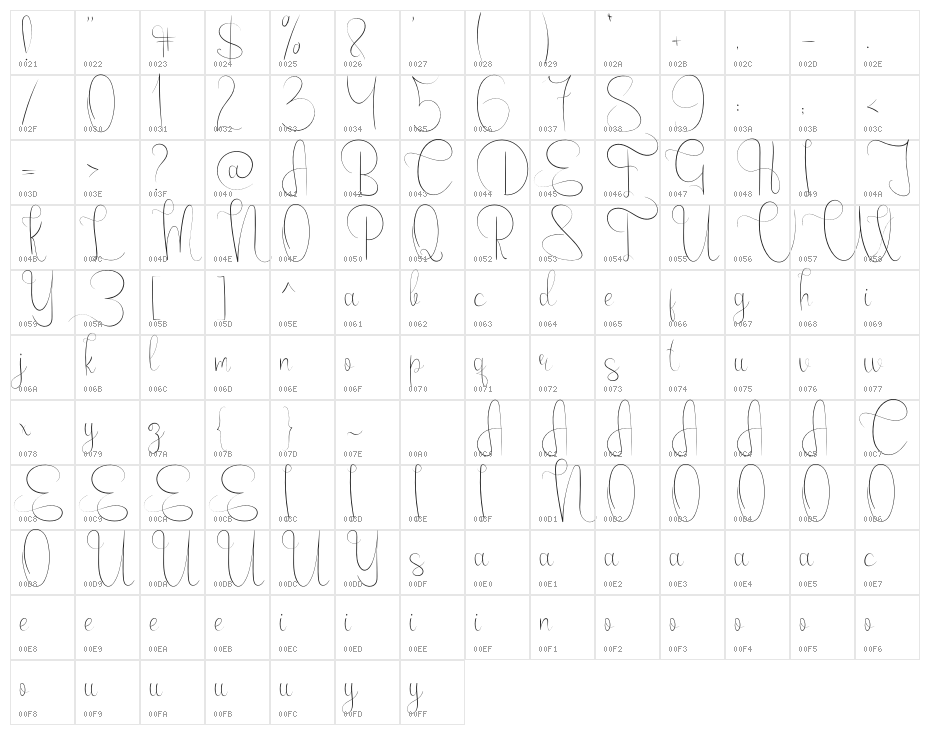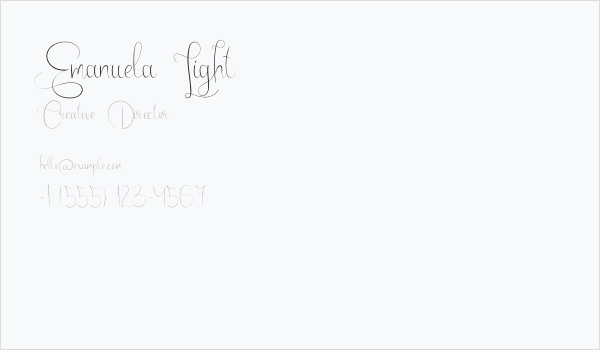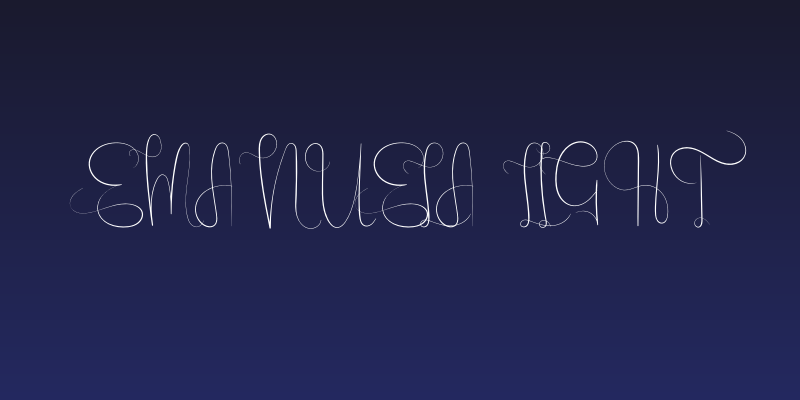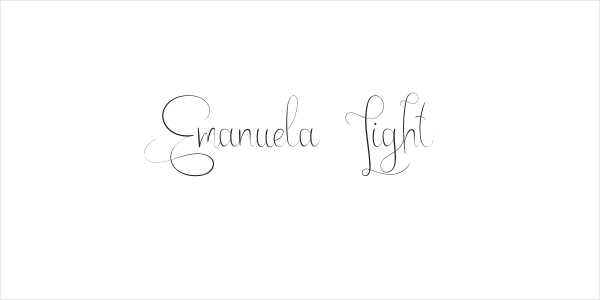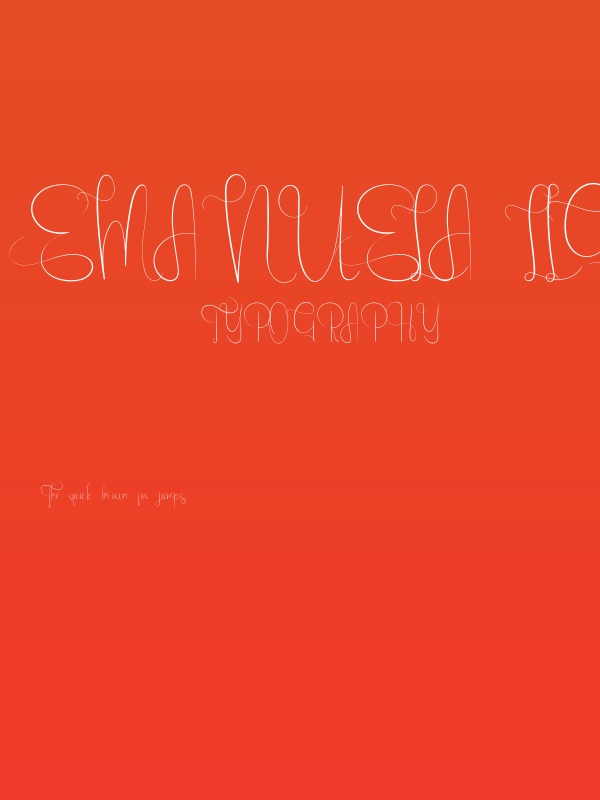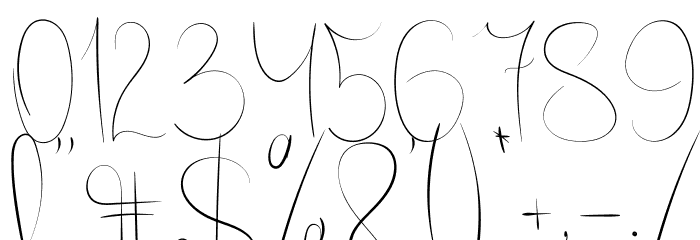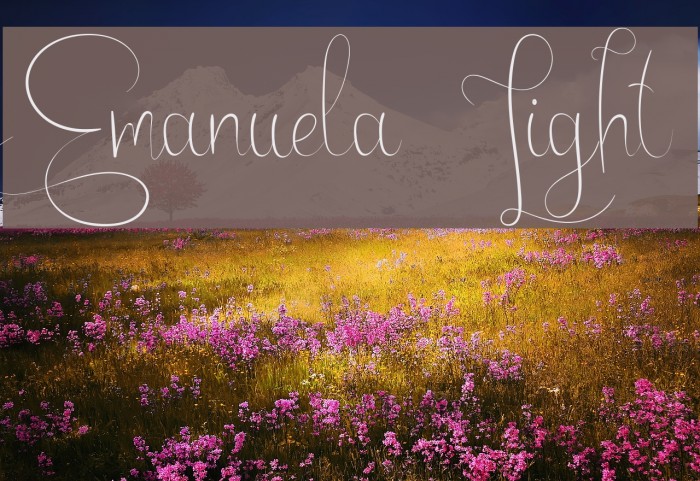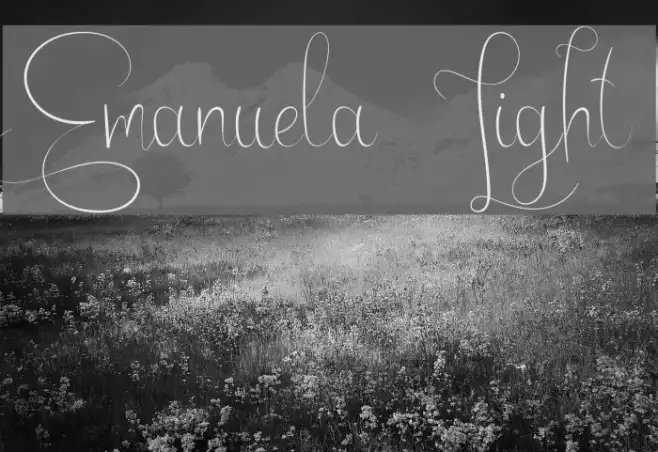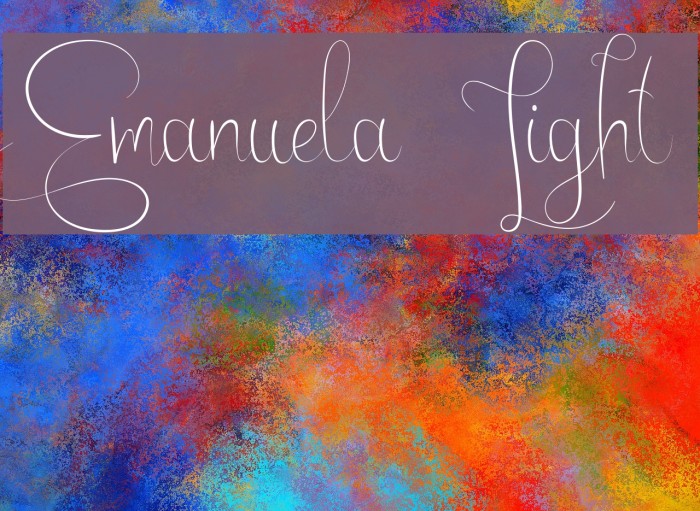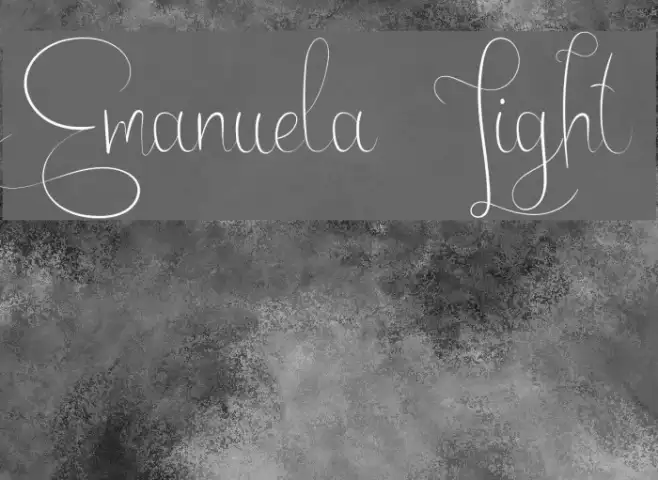
Emanuela Light Font
Emanuela Light Description
This font is an elegant and sophisticated script style that features delicate, flowing lines and a light, airy appearance. The characters are interconnected with graceful curves, giving it a sense of fluidity and movement. The uppercase letters are tall and slender, while the lowercase letters maintain a consistent height, enhancing readability. The numerals and special characters are designed to complement the overall aesthetic, maintaining the same graceful curves and light strokes. This font exudes a sense of elegance and refinement, making it suitable for formal and decorative applications.
| Proposed Projects | Ideal for wedding invitations, elegant branding, high-end product packaging, and decorative signage. |